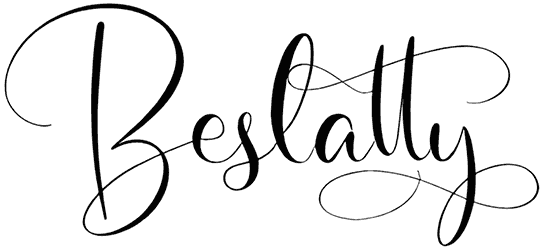
Beslatty Font
Greetings to the fresh script font that can put your hearts and minds to its warm, romantic, and friendly layouts instantly to absorb its different styles and amaze others.